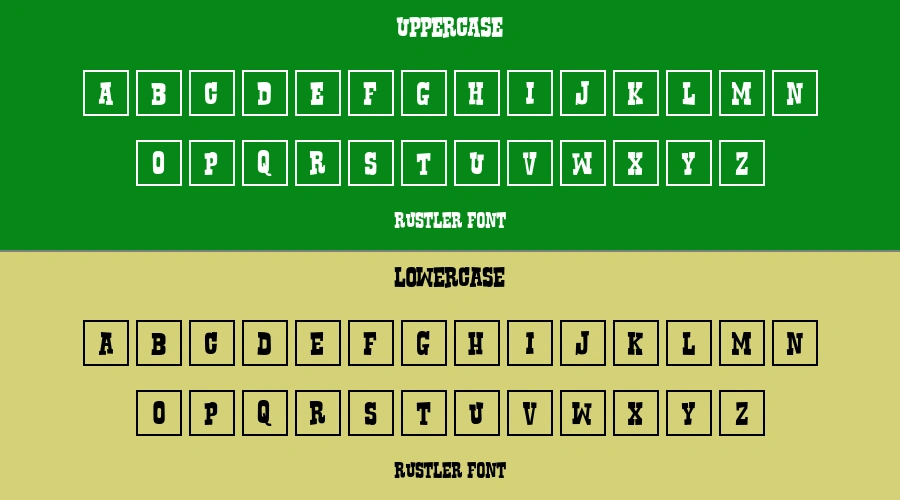
About Rustler Font
Rustler Font stands out for its distinctive combination of clean corners and reading ease. Ideal for corporate reports, it provides the precision and cultural resonance that professional projects demand. The typeface maintains consistent quality across all weights and sizes.
Key features include refined rounded apexes and practical lining figures, enhancing typographic expression. In campaign headers applications, Rustler Font demonstrates exceptional color application. The aperture size and historical reference contribute to its distinctive character and professional appeal.
Rustler Font |